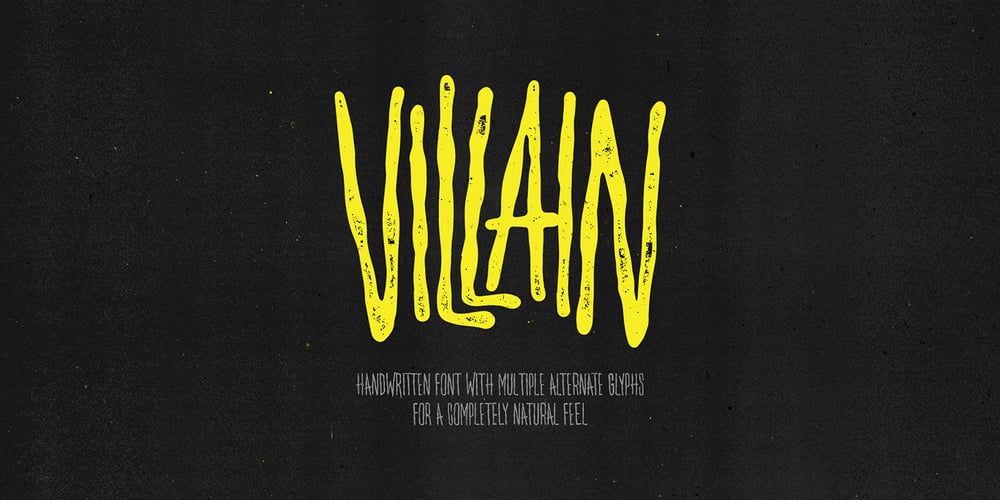
Villain
Villain font
Villain Font Family was designed by Clint English and published by Clint English. Villain contains 1 styles and family package options. Villain is a new handwritten, multi-alternate glyph font. This font was created with a natural flow in mind. Since it’s meant to look handwritten, Villain comes with 3 different glyphs per letter and number and even a few alternate symbols, as well.Pro Tip: Play with the baseline shift of each character to get an even more realistic, organic result.*Note: Grunge overlay texture is for previews only. Villain Font is completely clean and free of texture.